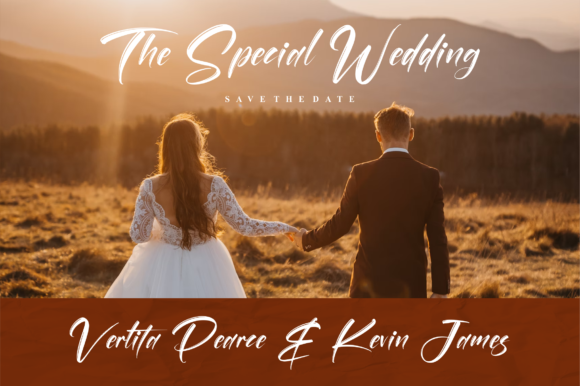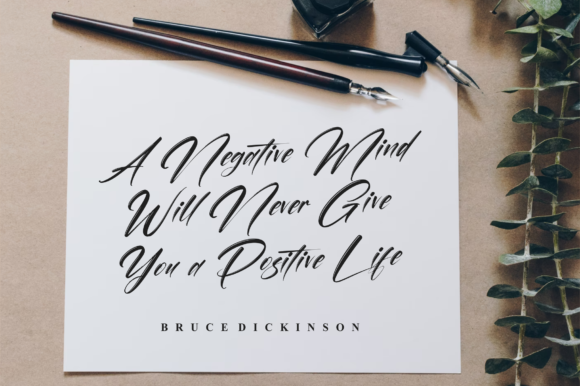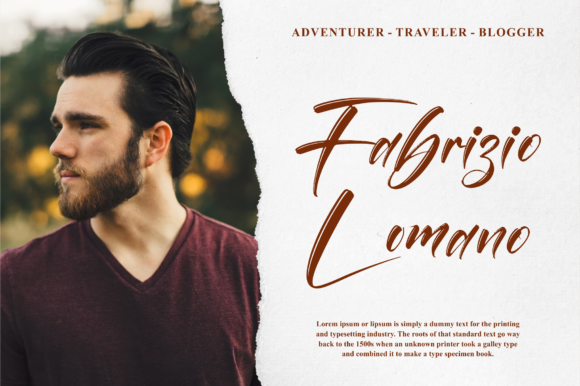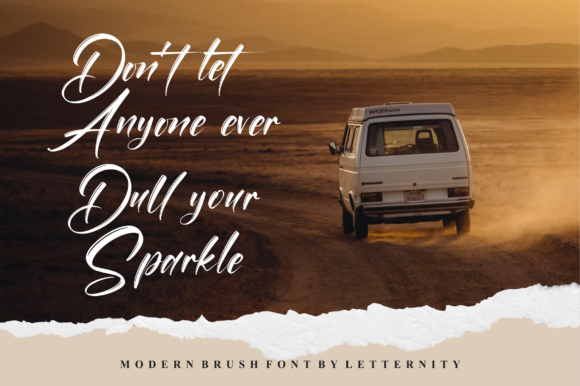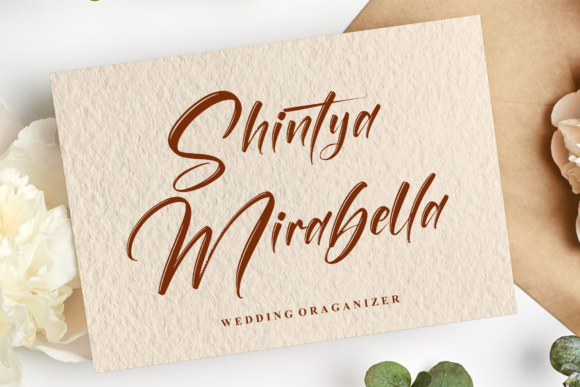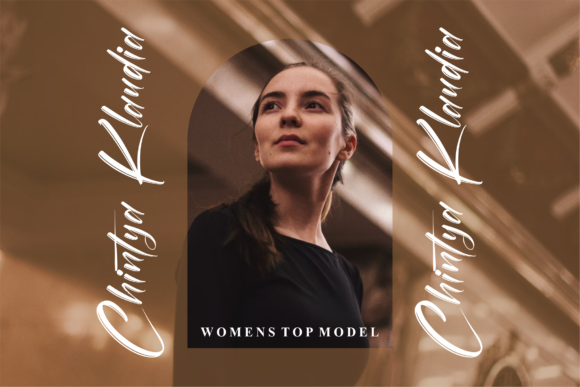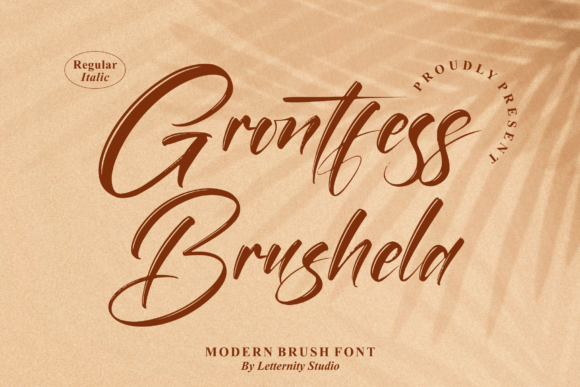
Introducing Grontfess Brushela: The Perfect Handwritten Font for Crafters and Designers
Are you a designer or crafter looking for a unique and charming font to elevate your creative projects? Look no further than Grontfess Brushela, a beautiful and brushed handwritten font that’s perfect for delivering any message with confidence, authenticity, and charm. In this article, we’ll take a closer look at the features and benefits of Grontfess Brushela, and explore how it can be used to take your crafting ideas to the next level.
A Beautifully Brushed Handwritten Font
Grontfess Brushela is a stunning example of a brushed handwritten font, with a unique and organic feel that’s reminiscent of traditional handwriting. The font features beautiful, sweeping strokes and a charmingly imperfect aesthetic that’s perfect for adding a personal touch to any project. Whether you’re creating cards, branding materials, labels, or anything else, Grontfess Brushela is sure to make your designs stand out from the crowd.
Confidence, Authenticity, and Charm
So what sets Grontfess Brushela apart from other fonts? For starters, its beautifully brushed texture gives it a sense of confidence and authenticity that’s hard to replicate with more traditional fonts. The font’s organic feel makes it perfect for designs that need to feel personal and relatable, while its charming imperfections add a touch of whimsy and personality. Whether you’re looking to create designs that are elegant and sophisticated or playful and fun, Grontfess Brushela is the perfect choice.
Elevate Your Crafting Ideas
Grontfess Brushela is an incredibly versatile font that can be used to elevate a wide range of crafting ideas. Here are just a few examples of the many ways you can use this beautiful font:
• Cards: Add a personal touch to your greeting cards, invitations, and other paper crafts with Grontfess Brushela’s charming handwritten aesthetic.
• Branding: Use Grontfess Brushela to create unique and memorable branding materials, such as logos, business cards, and letterheads.
• Labels: Add a touch of personality to your labels and packaging with Grontfess Brushela’s beautifully brushed texture.
• Stationery: Create gorgeous stationery sets, including notebooks, journals, and planners, using Grontfess Brushela as your font of choice.
Why Choose Grontfess Brushela?
So why should you choose Grontfess Brushela for your next project? Here are just a few reasons why this font stands out from the crowd:
• Unique and original: Grontfess Brushela is a one-of-a-kind font that’s sure to make your designs stand out.
• Easy to read: Despite its brushed texture, Grontfess Brushela is incredibly easy to read, making it perfect for designs that need to communicate a message.
• Versatile: Grontfess Brushela can be used for a wide range of projects, from cards and branding to labels and stationery.
• High-quality: Grontfess Brushela is a high-quality font that’s been carefully crafted to ensure that it looks amazing in any design.
If you’re looking for a beautiful and versatile font to elevate your crafting ideas, look no further than Grontfess Brushela. With its uniquely brushed texture, charming imperfections, and incredible versatility, this font is sure to become a favorite in your design arsenal. So why wait? Download Grontfess Brushela today and start creating stunning designs that are full of confidence, authenticity, and charm!